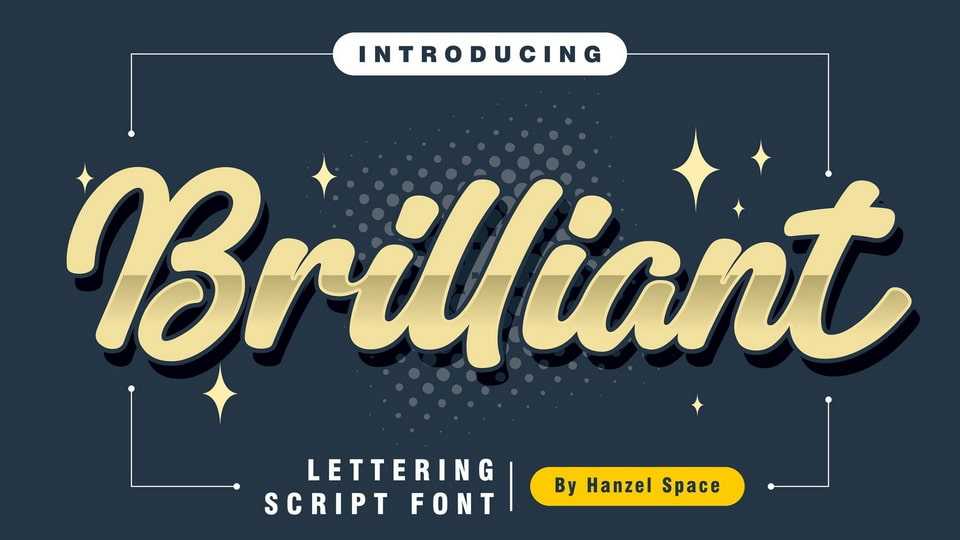
Download Brilliant font, a lettering script typeface. Brilliant font has a vintage touch and a modern look to each letter, slightly rounded and neat shapes in each curve, plus a Stylistic feature at the end of the letters.